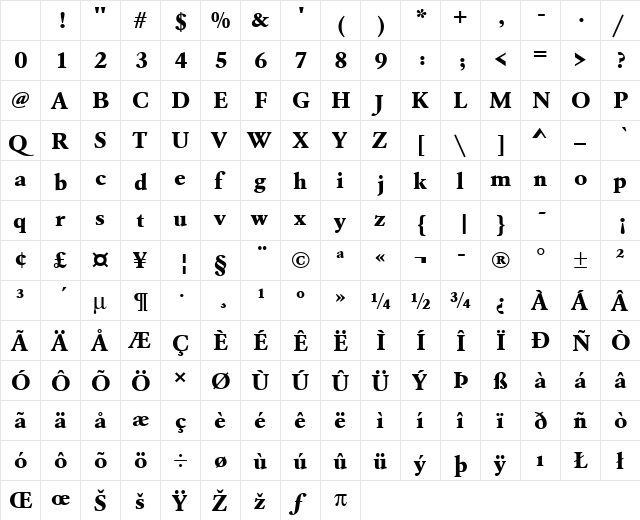
Complete URWGaramondTExtBolWid Regular glyph index. Displaying only characters natively supported by URWGaramondTExtBolWid Regular font.
URWGaramondTExtBolWid is a composed and adaptable typeface that performs quietly and consistently across a wide range of design contexts.